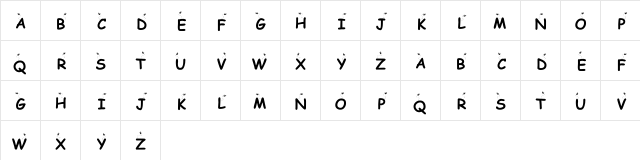
KR Buzzzz Regular Free Font
KR Buzzzz Regular
Design Context for KR Buzzzz
KR Buzzzz is a composed and adaptable typeface that performs quietly and consistently across a wide range of design contexts.